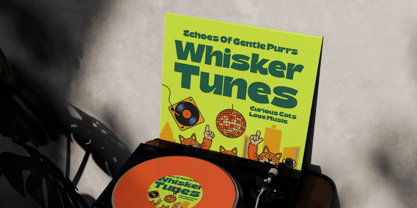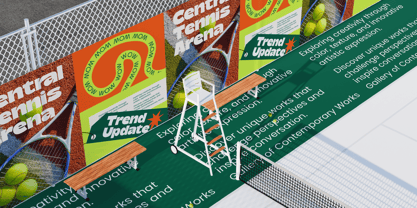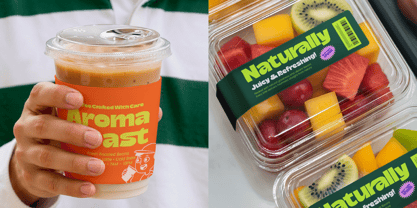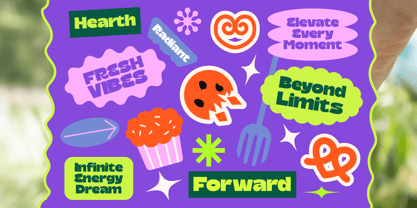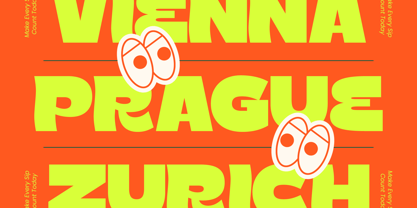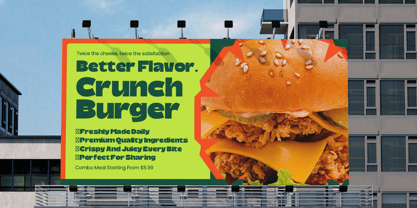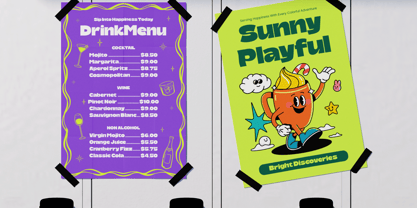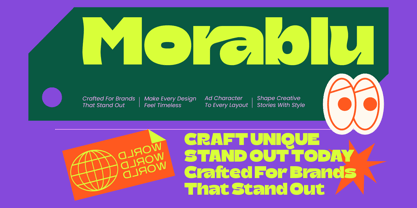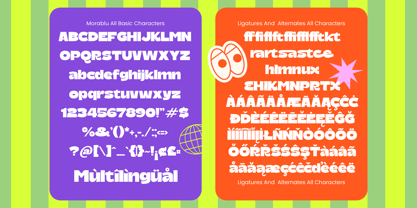
Morablu
by Timelesstype Studio
The Morablu Font Family was designed by Heru Utama Putra and published by Timelesstype Studio. Morablu contains 2 styles and family package options. More about this family
Experience the vibrant revival of retro aesthetics with a modern twist. Morablu – Groovy Display is a bold, high-impact typeface designed to capture attention and infuse your projects with a sense of fluid movement. Its psychedelic inspiration and heavyweight letterforms make it the ultimate choice for designers looking to break away from traditional structures and embrace a funky, avant-garde aesthetic that demands to be seen.